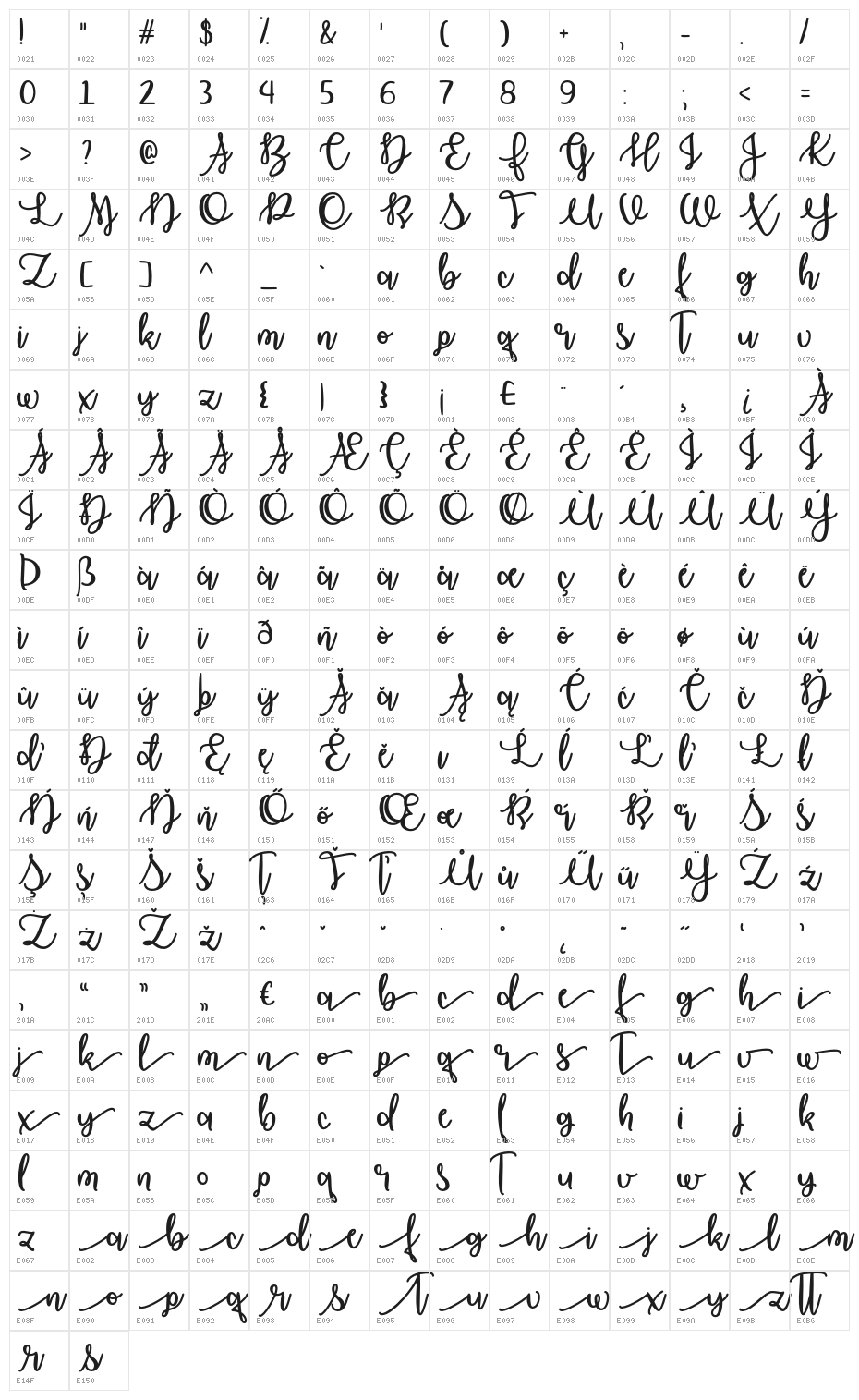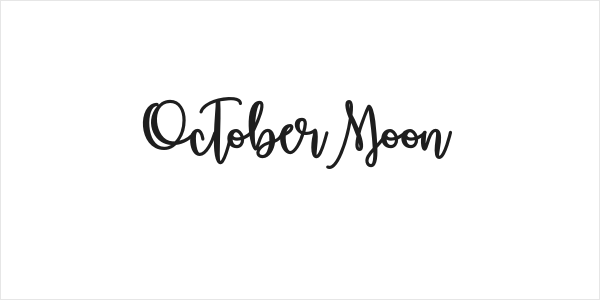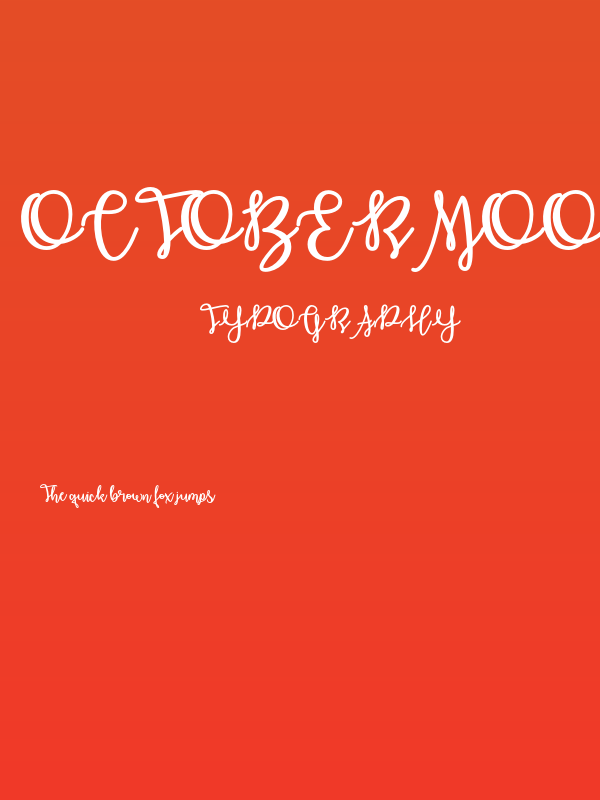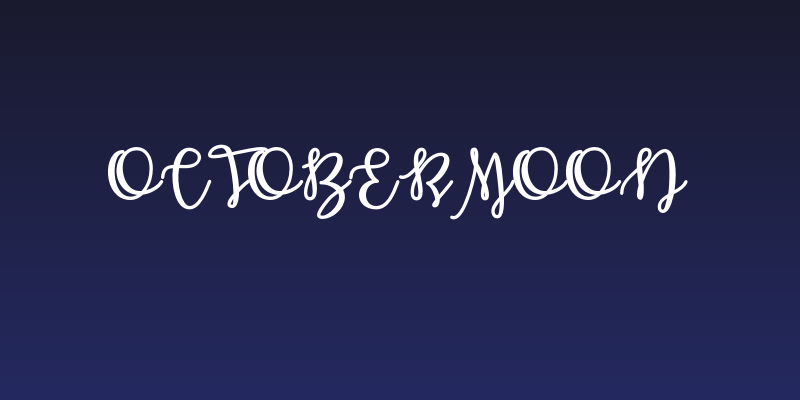
OctoberMoon Font
OctoberMoon Description
This font features a playful and whimsical script style with a handwritten appearance. The letters are interconnected, creating a flowing and continuous look that mimics natural handwriting. The uppercase letters maintain a consistent height, while the lowercase letters exhibit a charming irregularity, adding to the font's casual and friendly vibe. The numerals and special characters are designed to match the overall style, ensuring a cohesive appearance across all text elements. The strokes are moderately thick, providing good readability while maintaining the font's decorative nature.
| Use Case | Logos, Invitations, Greeting Cards |
| Proposed Projects | Ideal for greeting cards, invitations, personal branding, and creative projects that require a friendly and approachable touch. |